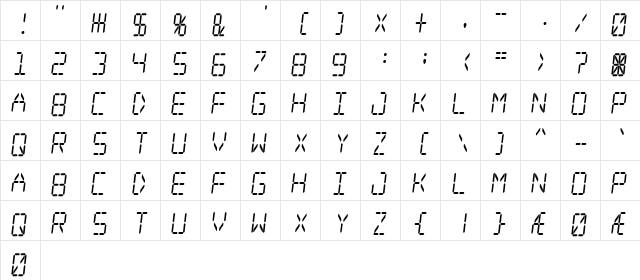
Digital dream Skew Narrow Regular
Design Context for Digital dream Skew Narrow Typeface
Digital dream Skew Narrow channels digital-age aesthetics through its sharp, structured letterforms — ideal for brands that want to signal innovation. The condensed width makes it efficient for tight spaces without sacrificing legibility.
Pro Tip: Try Digital dream Skew Narrow with generous letter-spacing in UI labels and navigation — the geometric forms benefit from room to breathe.